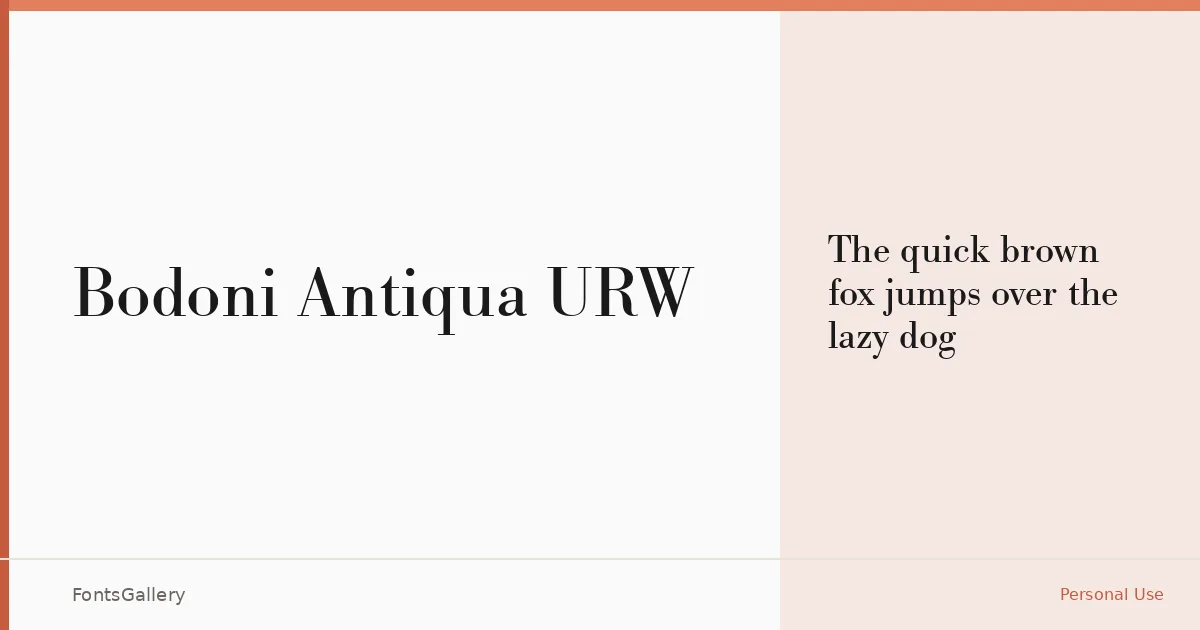
About Bodoni Antiqua URW Font
The extreme contrast between thick strokes and hairline serifs is what you notice first — that taut, almost architectural tension that has made the Bodoni model one of the most referenced forms in type history. This is a URW digitization, copyright 1994, preserving the classical proportions of the high-contrast Didone tradition in a single Regular cut delivered as a TTF file.
Sitting squarely in the serif category, the design reads as simultaneously classic and modern — a quality built into its vertical stress, flat unbracketed serifs, and razor-thin horizontal strokes that demand careful setting. The mood is luxury and elegance without ornamentation: all the drama comes from the letterforms themselves. With only the one Regular weight available, the family works best where a single voice needs to carry authority rather than a range of weights doing the work.
The design's Latin character set suits headline and display work: book covers, magazine folios, branding lockups, and logo wordmarks where a refined editorial presence is the goal. It pairs well with the clean neutrality of Helvetica or Aileron, softens productively against the calligraphic flow of Allura or the script energy of Ballmain, and holds its own alongside the geometric structure of Abrade.